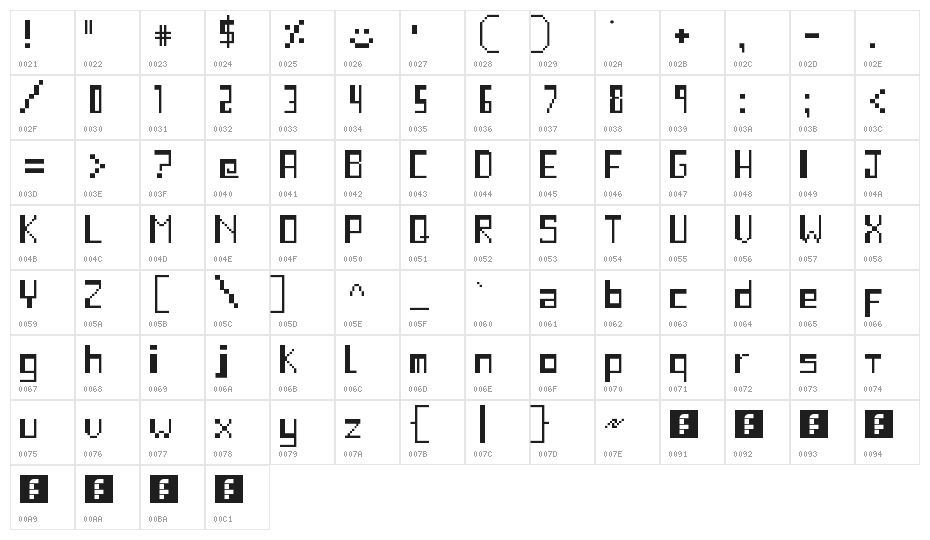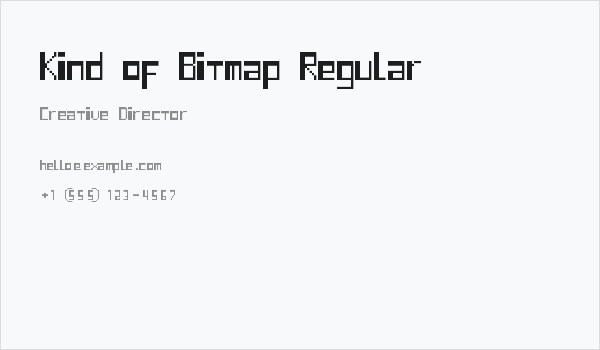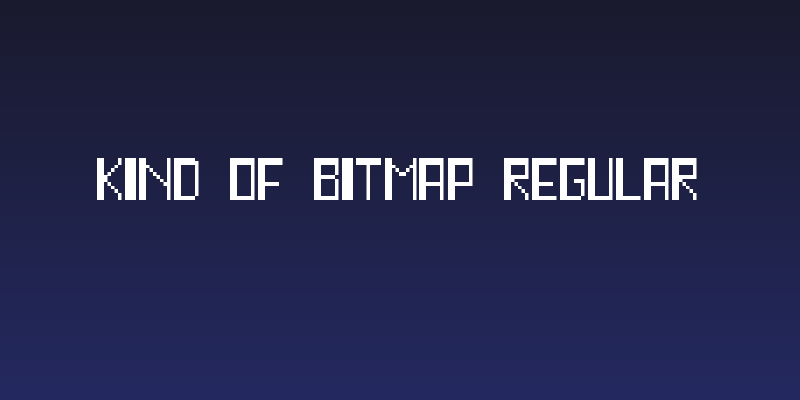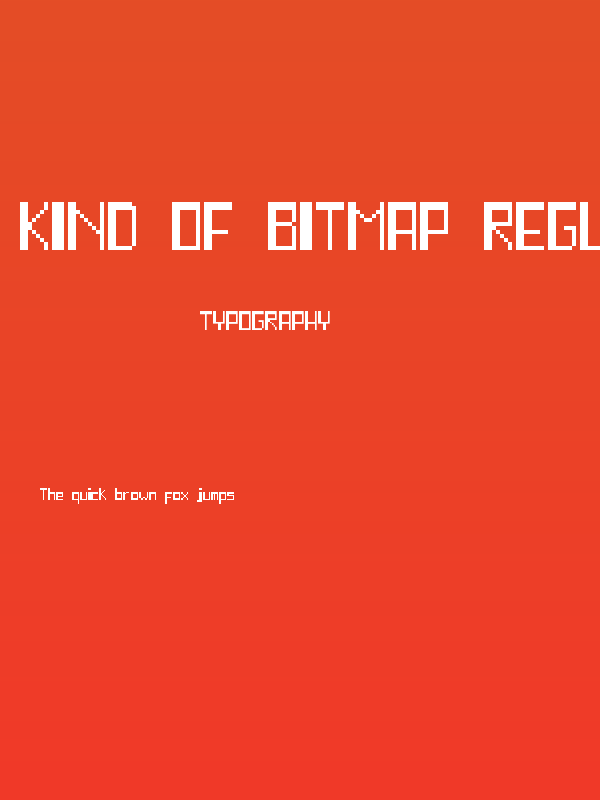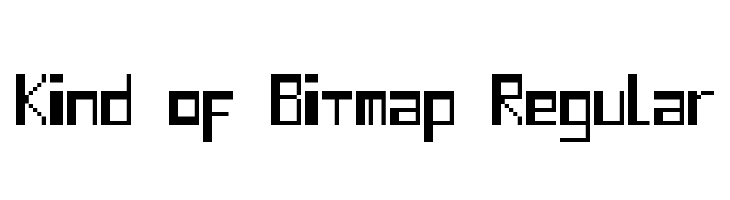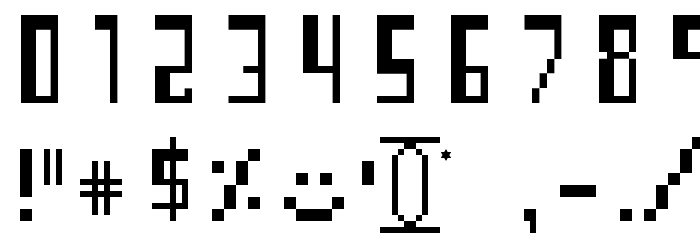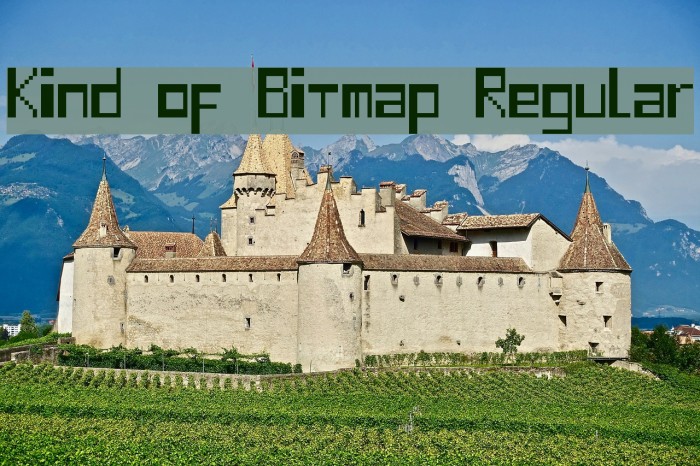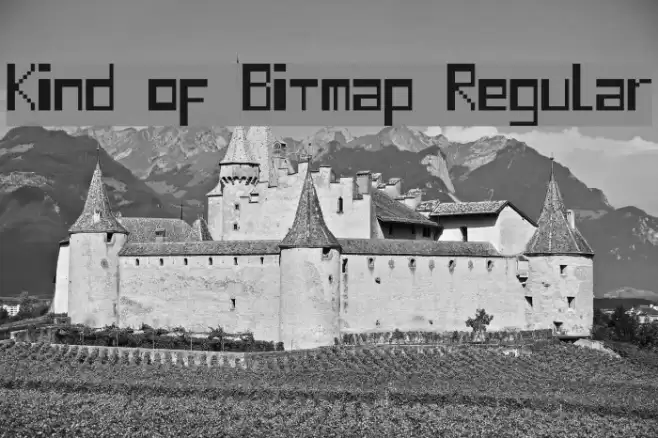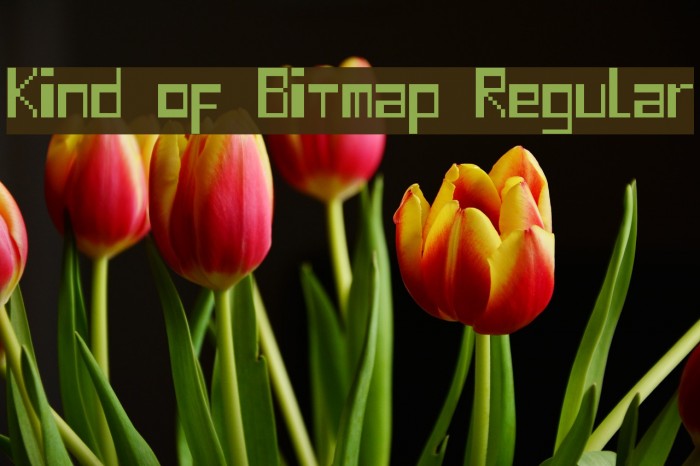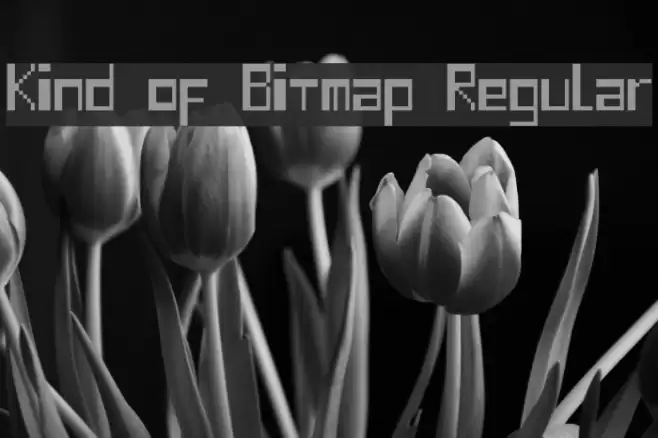
Kind of Bitmap Regular Font
Kind of Bitmap Regular Description
This font features a pixelated, bitmap style reminiscent of early digital displays and video games. Each character is composed of square blocks, giving it a distinctly retro and digital appearance. The uppercase and lowercase letters maintain a consistent blocky structure, with minimal curves and a strong geometric form. Numbers and special characters follow the same pixelated design, ensuring uniformity across all glyphs. The font's simplicity and clarity make it highly legible, even at smaller sizes, while its nostalgic aesthetic evokes a sense of vintage computing and arcade games.
| Overall Style | Vintage |
| Use Case | Logos, Headlines, Digital Art |
| Proposed Projects | Ideal for retro-themed designs, video game graphics, digital art projects, and any creative work that seeks to evoke nostalgia for early computing and gaming eras. |